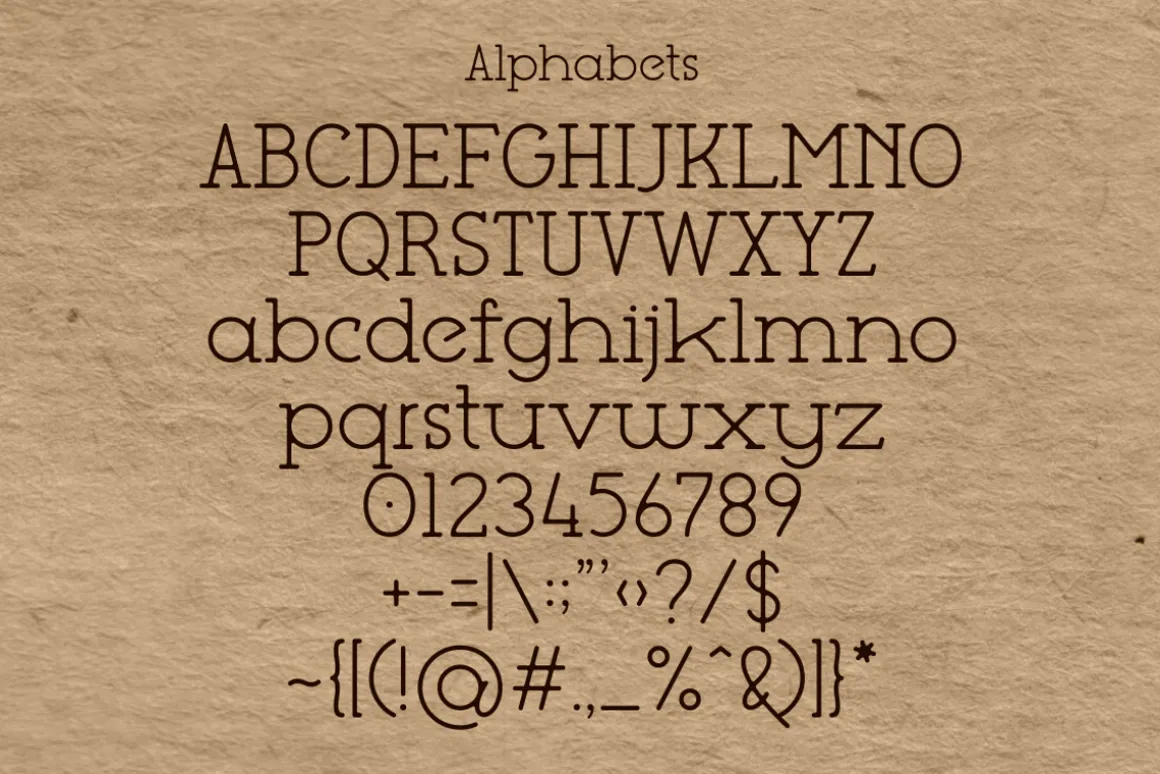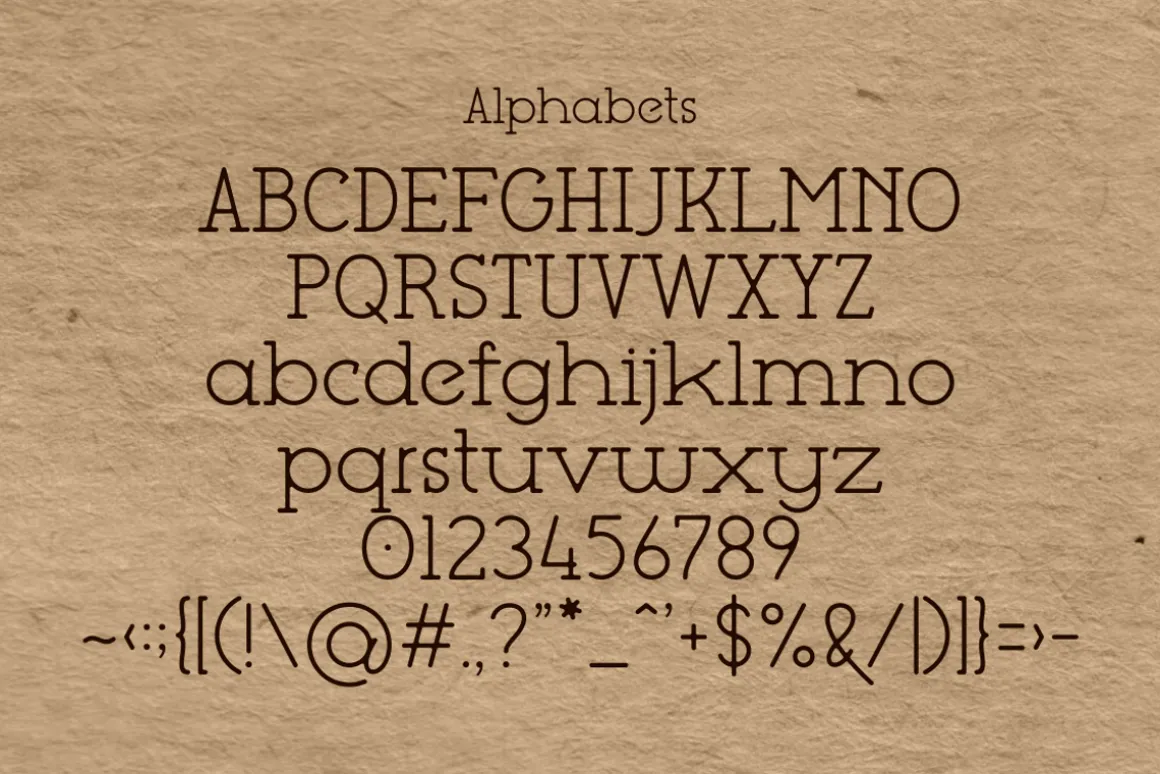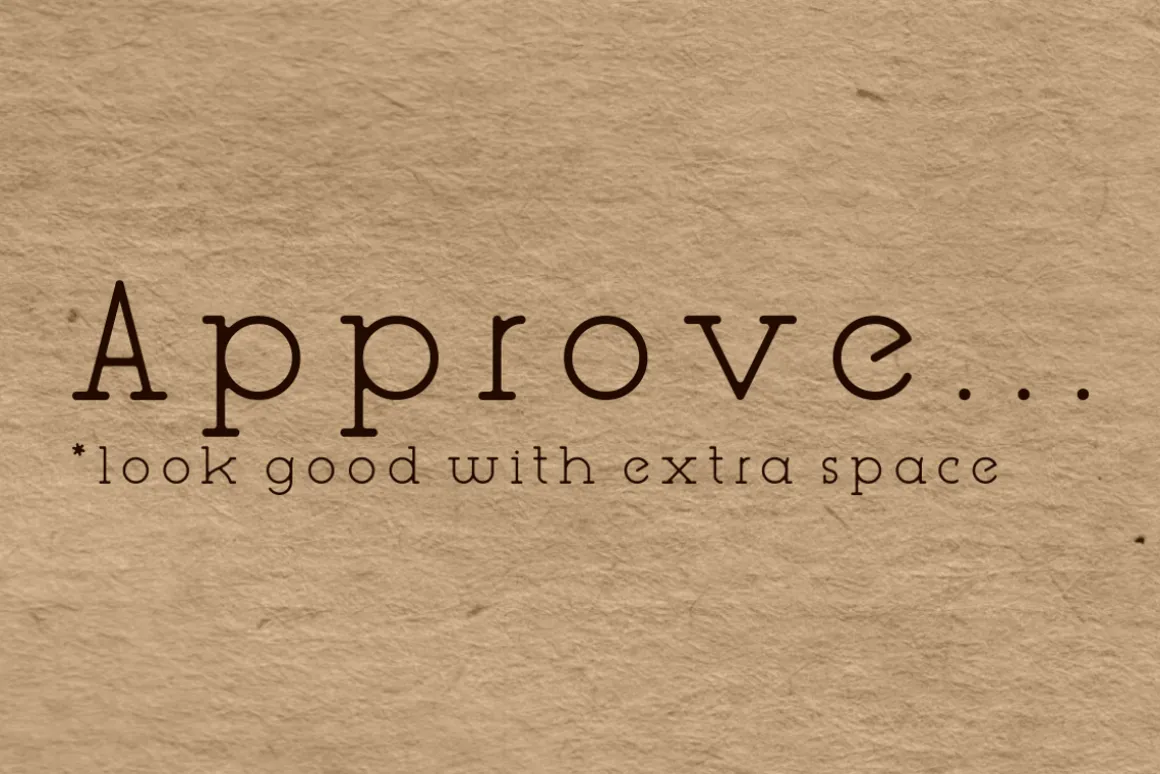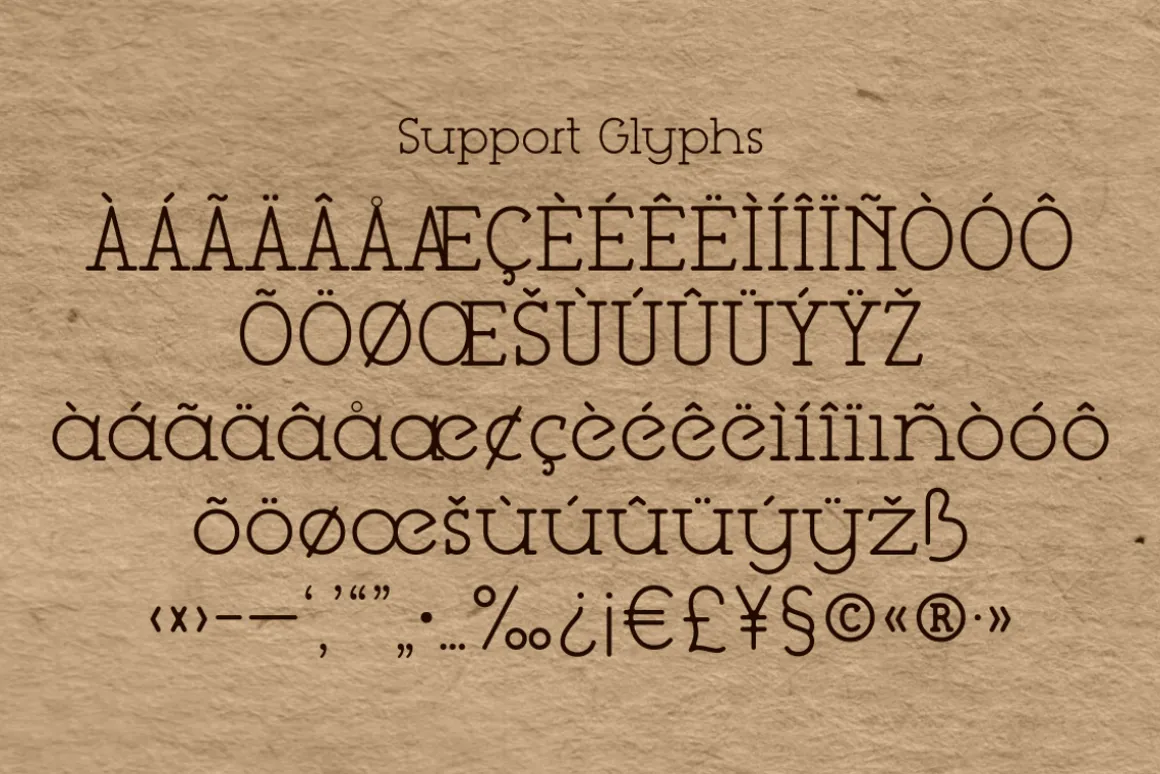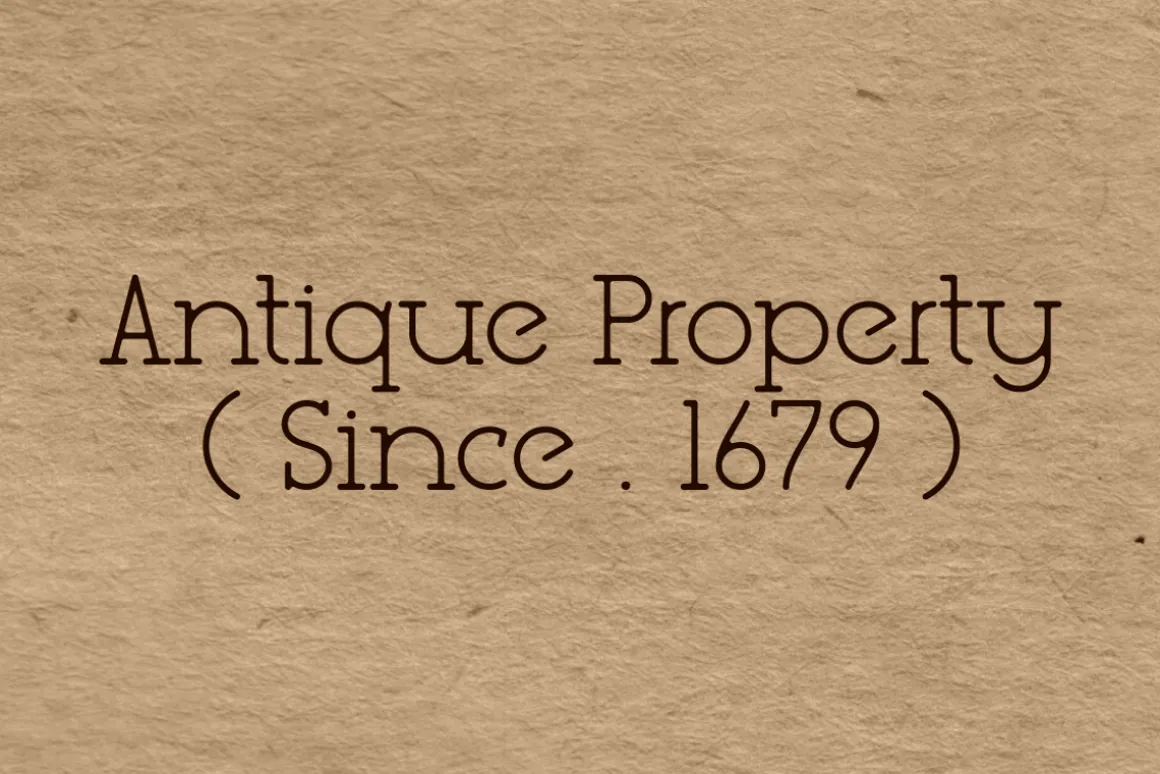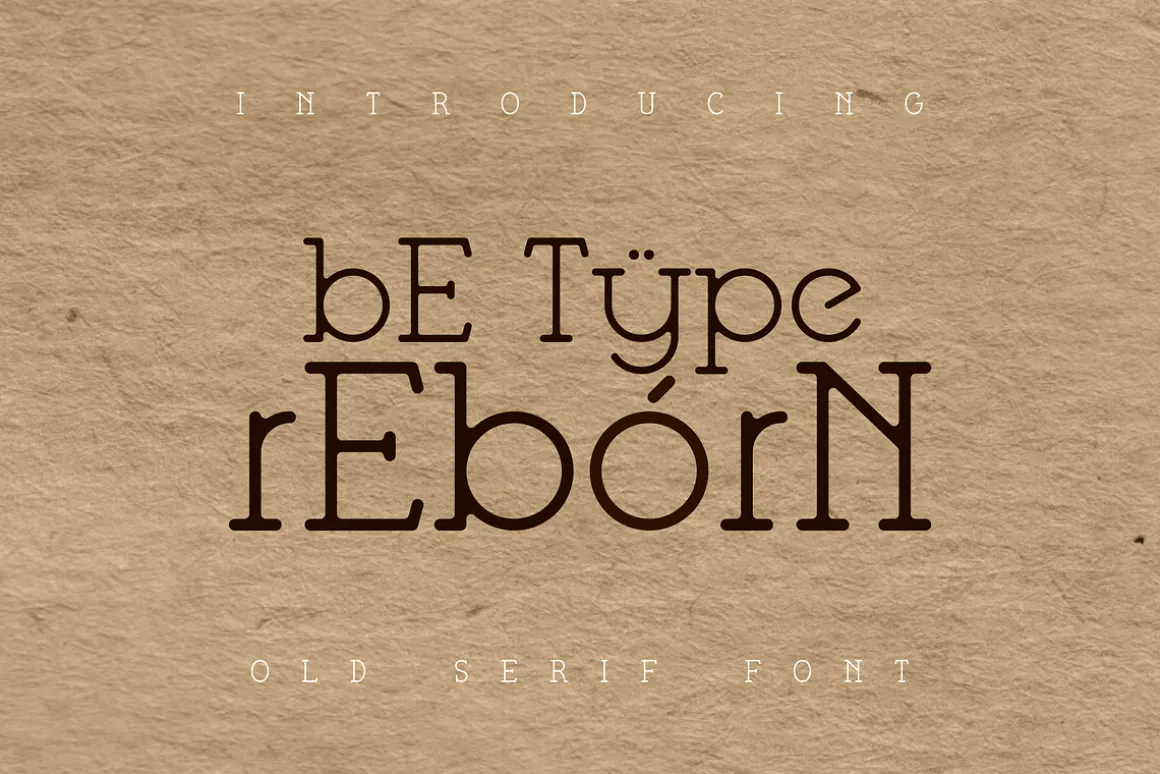
is a combination of monoline fonts wrapped in a serif form and given a connecting space to make it look like the previous fonts. The focus on product use is not limited to old products, but contemporary things can also be combined with this font as an alternative font.